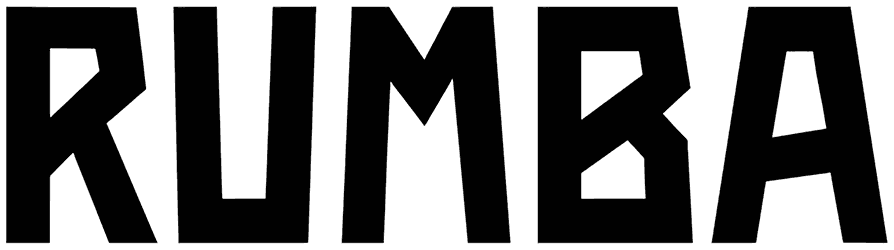
Rumba Font
It’s time to meet with an unusual handwritten font, which is called Rumba. With bold and geometric letters, this adventure font will be a proper and interesting illustration for many designs, from poster titles to web backgrounds. Rumba covers two versions, but it doesn’t offer lowercase letters and most of the punctuation marks.